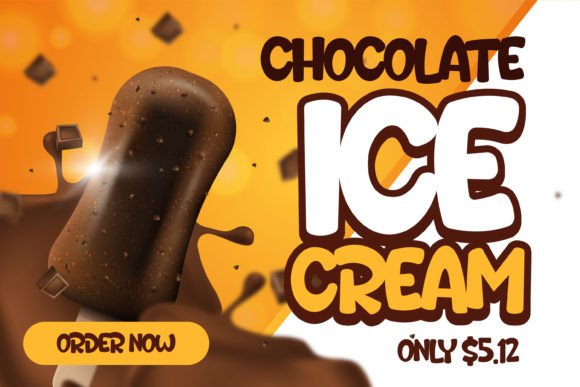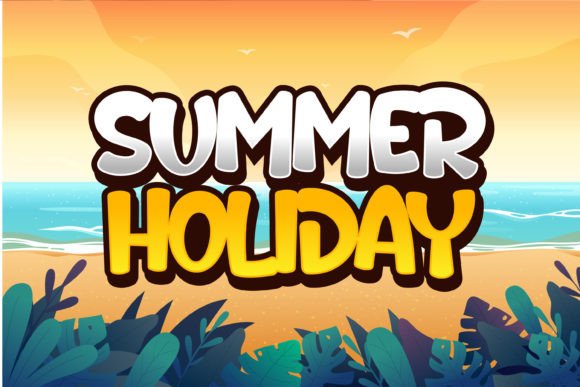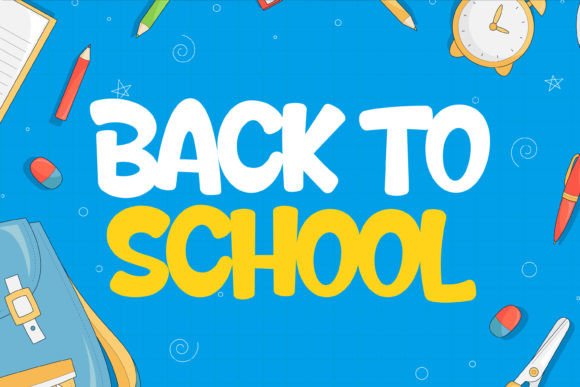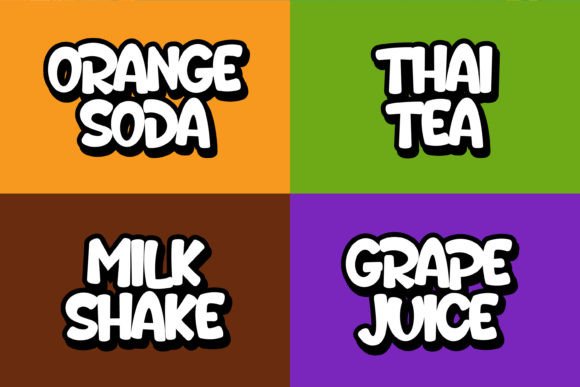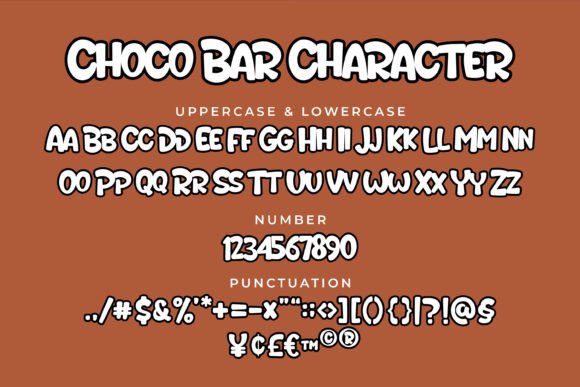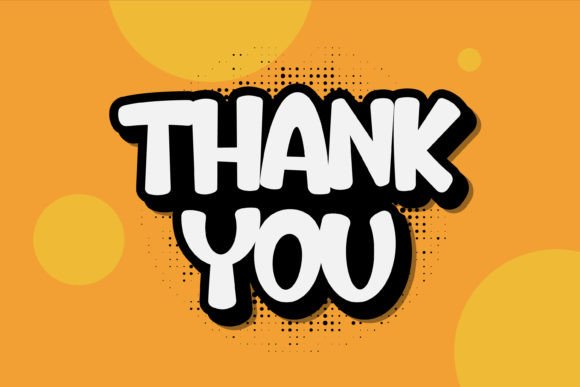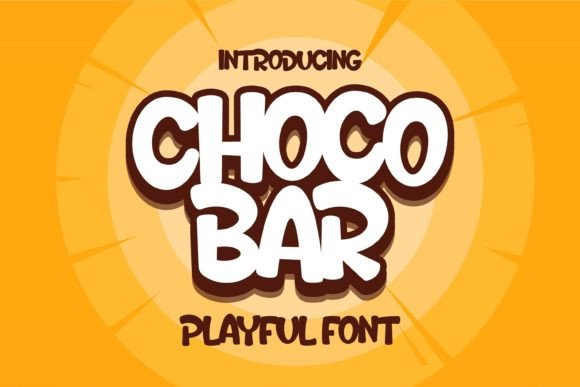
Introducing Choco Bar: The Sweetest Display Font for Your Design Projects
Are you looking for a font that can add a touch of whimsy and fun to your design projects? Look no further than Choco Bar, the playful display font that’s as sweet and irresistible as its name! With its bold, chunky letters and delightful design, Choco Bar is perfect for candy packaging, bakery branding, posters, or any design that craves a touch of sweetness.
The Perfect Font for Sweet Designs
Choco Bar is a display font that’s designed to make a statement. Its bold, chunky letters are perfect for headlines, titles, and any other text that needs to stand out. The font’s playful design is reminiscent of childhood treats and memories, making it perfect for designs that need to evoke a sense of fun and nostalgia.
Whether you’re designing a logo for a candy store, creating a poster for a bakery, or simply looking for a font to add some personality to your project, Choco Bar is the perfect choice. The font’s sweet and playful design is sure to bring a smile to your customers’ faces and make your brand stand out from the crowd.
Key Features of Choco Bar
• Bold and Chunky Letters: Choco Bar’s bold, chunky letters are perfect for making a statement and grabbing attention.
• Playful Design: The font’s playful design is reminiscent of childhood treats and memories, making it perfect for designs that need to evoke a sense of fun and nostalgia.
• Versatile: Choco Bar is perfect for a wide range of design projects, from candy packaging to posters and more.
• Easy to Read: Despite its bold and chunky design, Choco Bar is easy to read and understand, making it perfect for headlines and titles.
Uses for Choco Bar
Choco Bar is a versatile font that can be used for a wide range of design projects. Here are some ideas to get you started:
• Candy Packaging: Choco Bar is perfect for candy packaging, adding a touch of fun and whimsy to your designs.
• Bakery Branding: The font’s playful design makes it perfect for bakery branding, from logos to signage.
• Posters: Choco Bar is perfect for posters, adding a bold and eye-catching element to your designs.
• Social Media Graphics: The font’s playful design makes it perfect for social media graphics, from Facebook posts to Instagram stories.
Why Choose Choco Bar?
There are many fonts to choose from, but Choco Bar stands out from the crowd. Here are just a few reasons why:
• Unique Design: Choco Bar’s playful design is unlike any other font on the market, making it perfect for designers who want to stand out.
• High-Quality: Choco Bar is a high-quality font that’s designed to deliver exceptional results.
In conclusion, Choco Bar is the perfect font for designers who want to add a touch of whimsy and fun to their projects. With its bold, chunky letters and playful design, Choco Bar is perfect for candy packaging, bakery branding, posters, or any design that craves a touch of sweetness.
Whether you’re a professional designer or a crafter, Choco Bar is a must-have font that’s sure to bring a smile to your customers’ faces and make your brand stand out from the crowd.